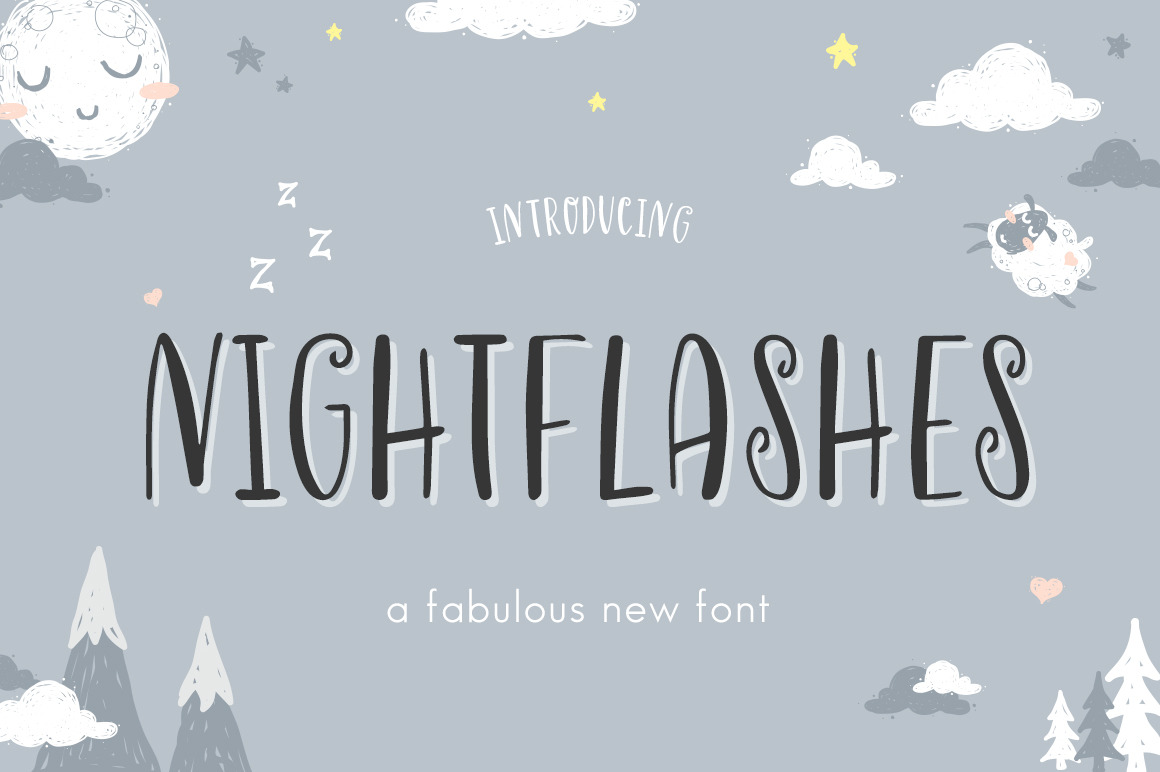
Nightflashes Font
Nightflashes is a dreamy new font from Salt and Pepper Designs. Whimsical and carefree, it can add a touch of child like innocence to your work. Happy and bouncy yet legible - that's Nightflahes!